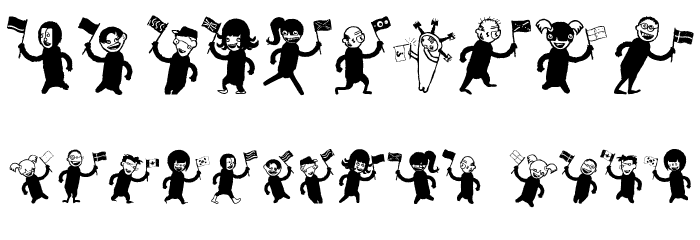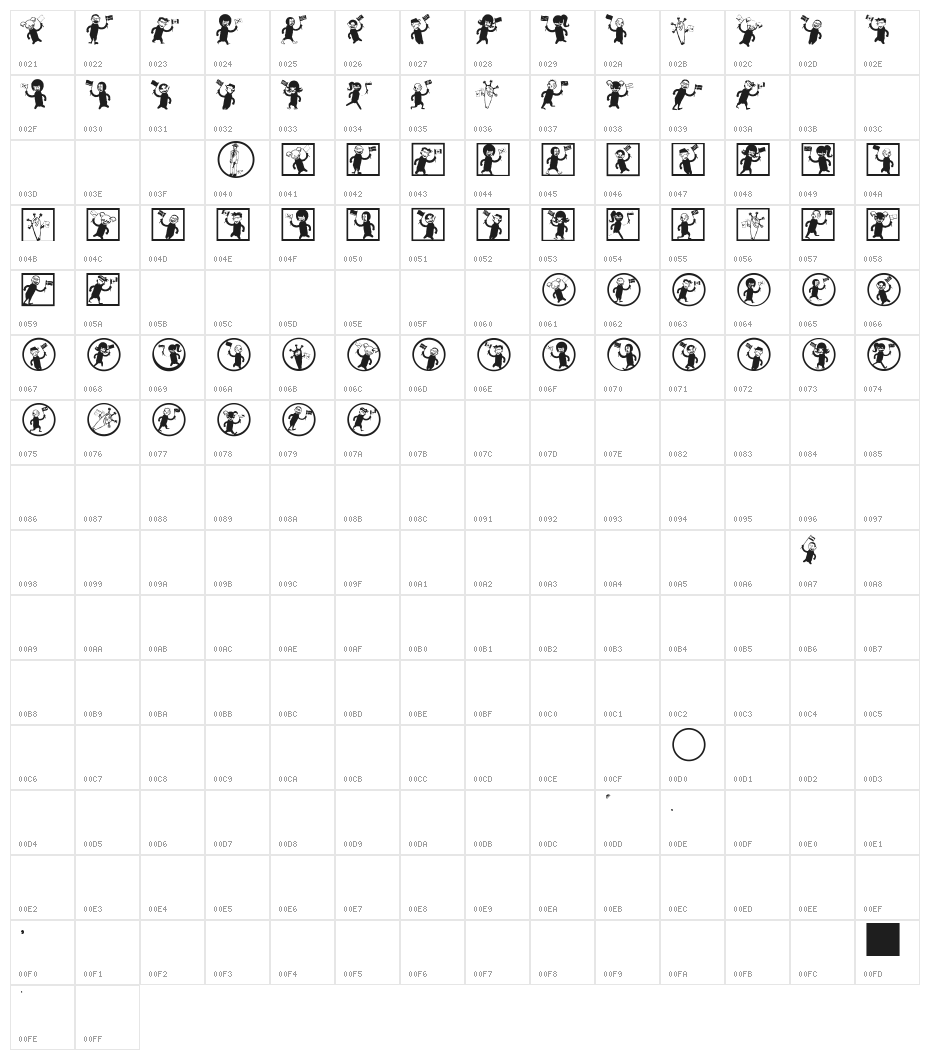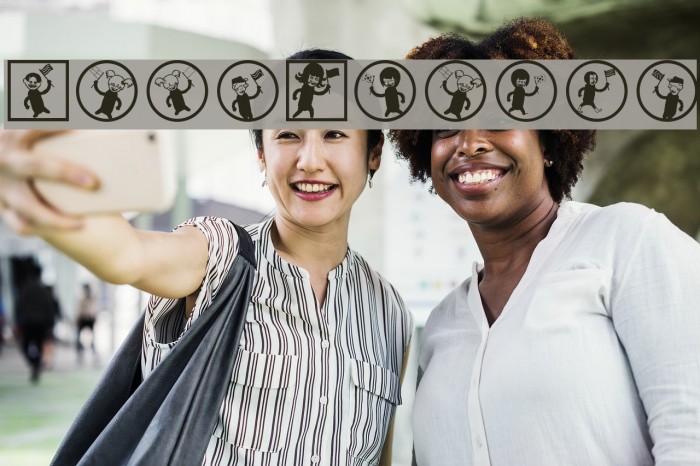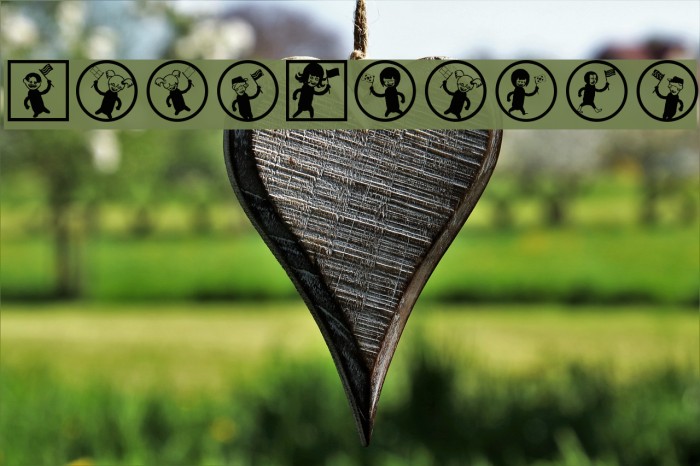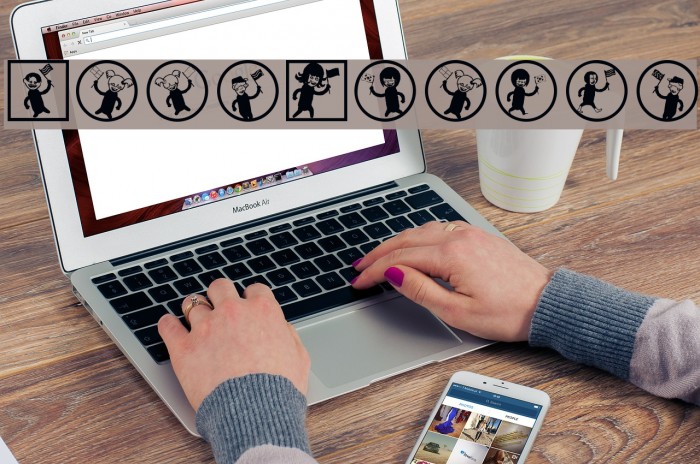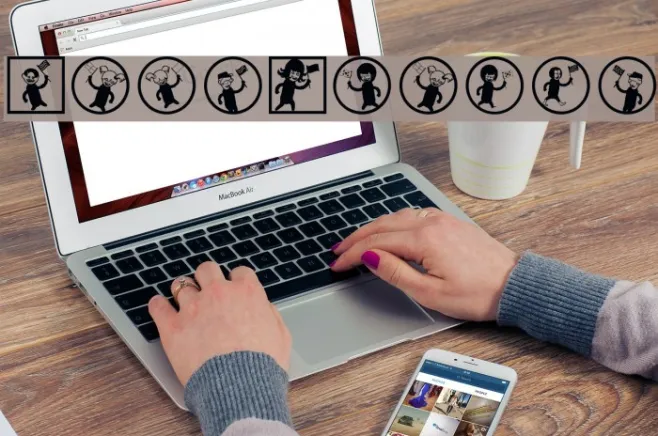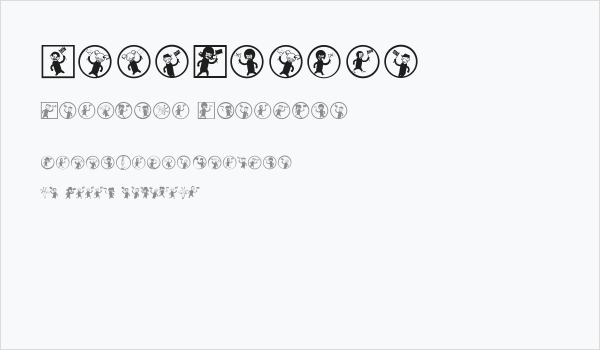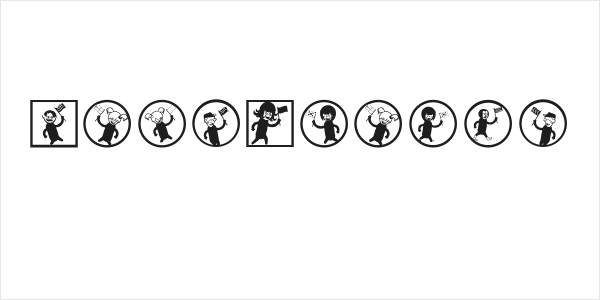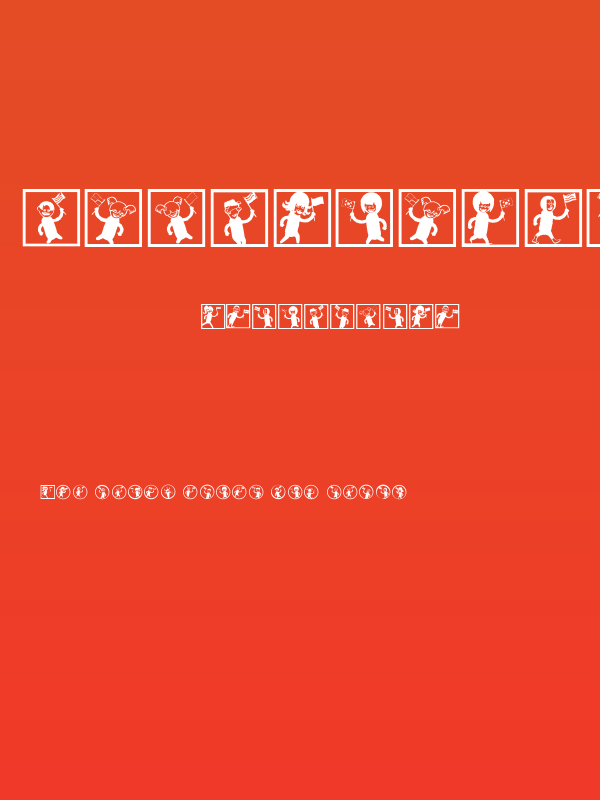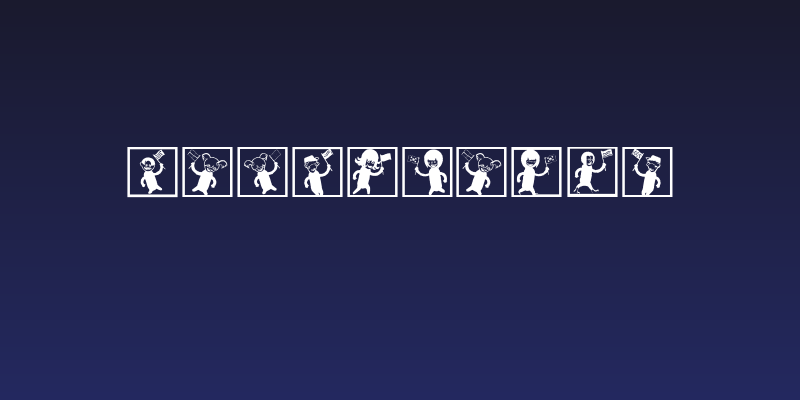
FlagHolder Font
FlagHolder Description
A playful, hand-drawn decorative font where each character is represented by a cartoon figure holding a flag, with variations in pose and expression for each letter, number, and symbol. The characters are outlined in black with filled black bodies and simple facial features, giving a whimsical and informal appearance.
| Overall Style | Playful, Whimsical, Decorative |
| Use Case | Headlines, Posters, Logos, Themed Events |
| Proposed Projects | ChildrenΓ’β¬β’s books, party invitations, playful branding, posters, comic strips, educational materials. |